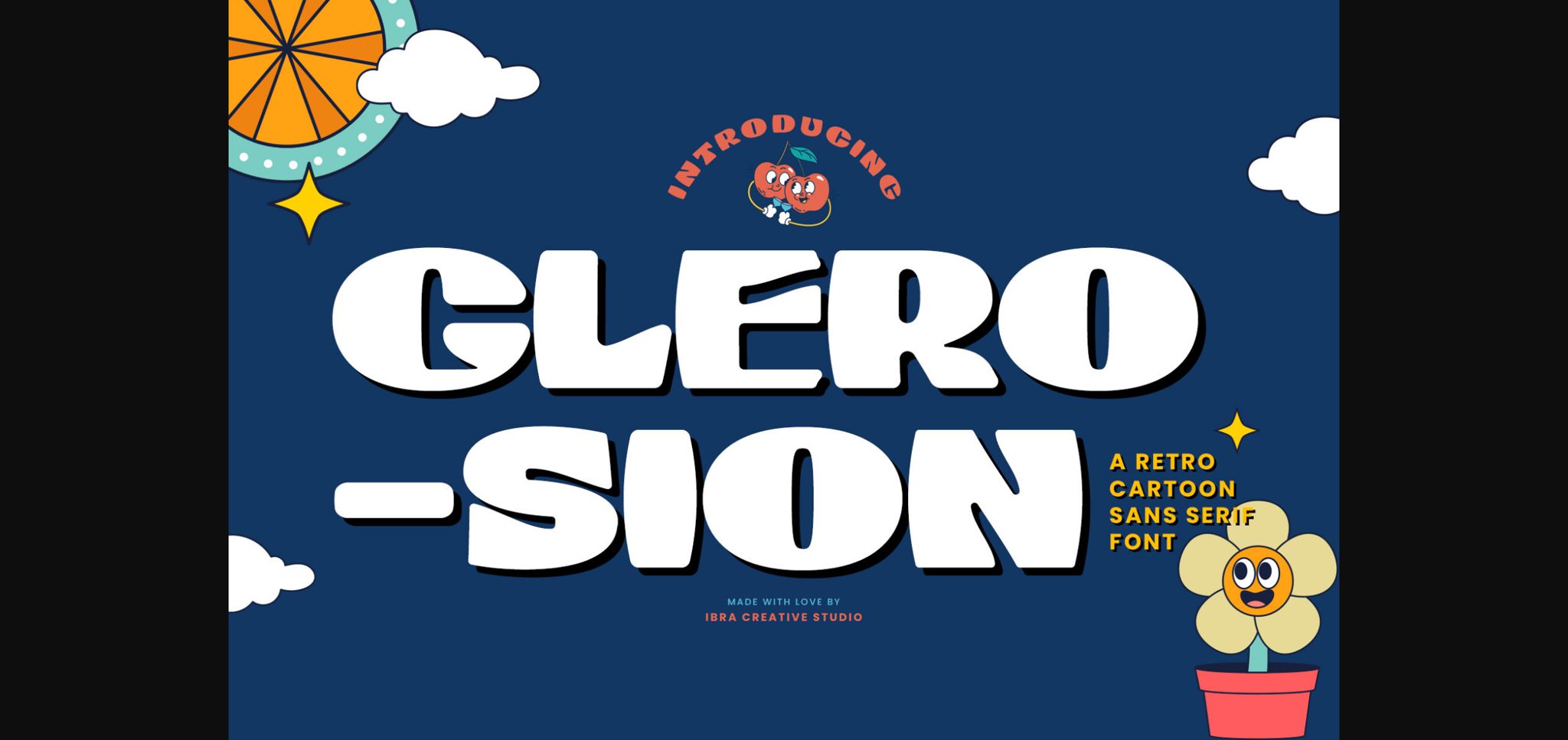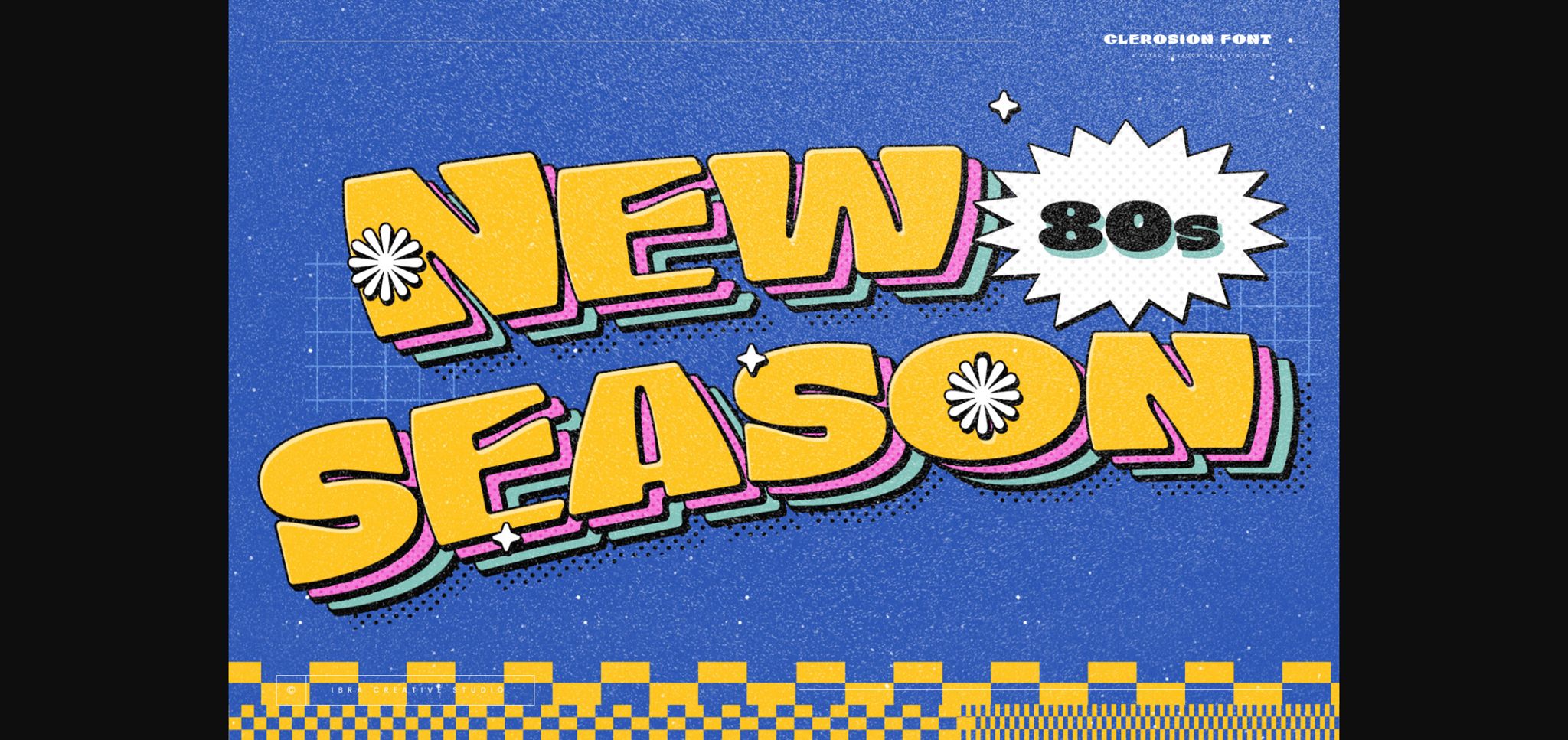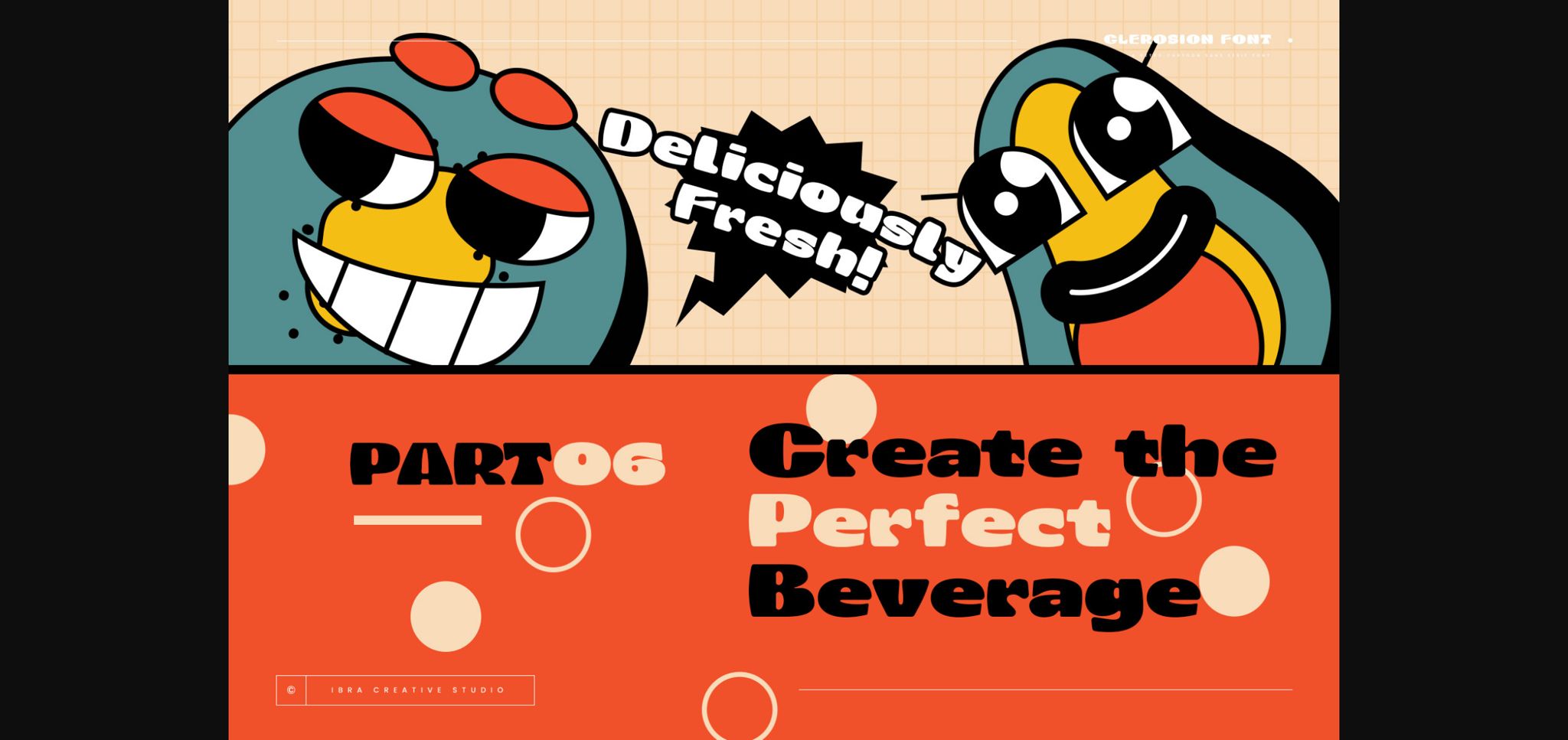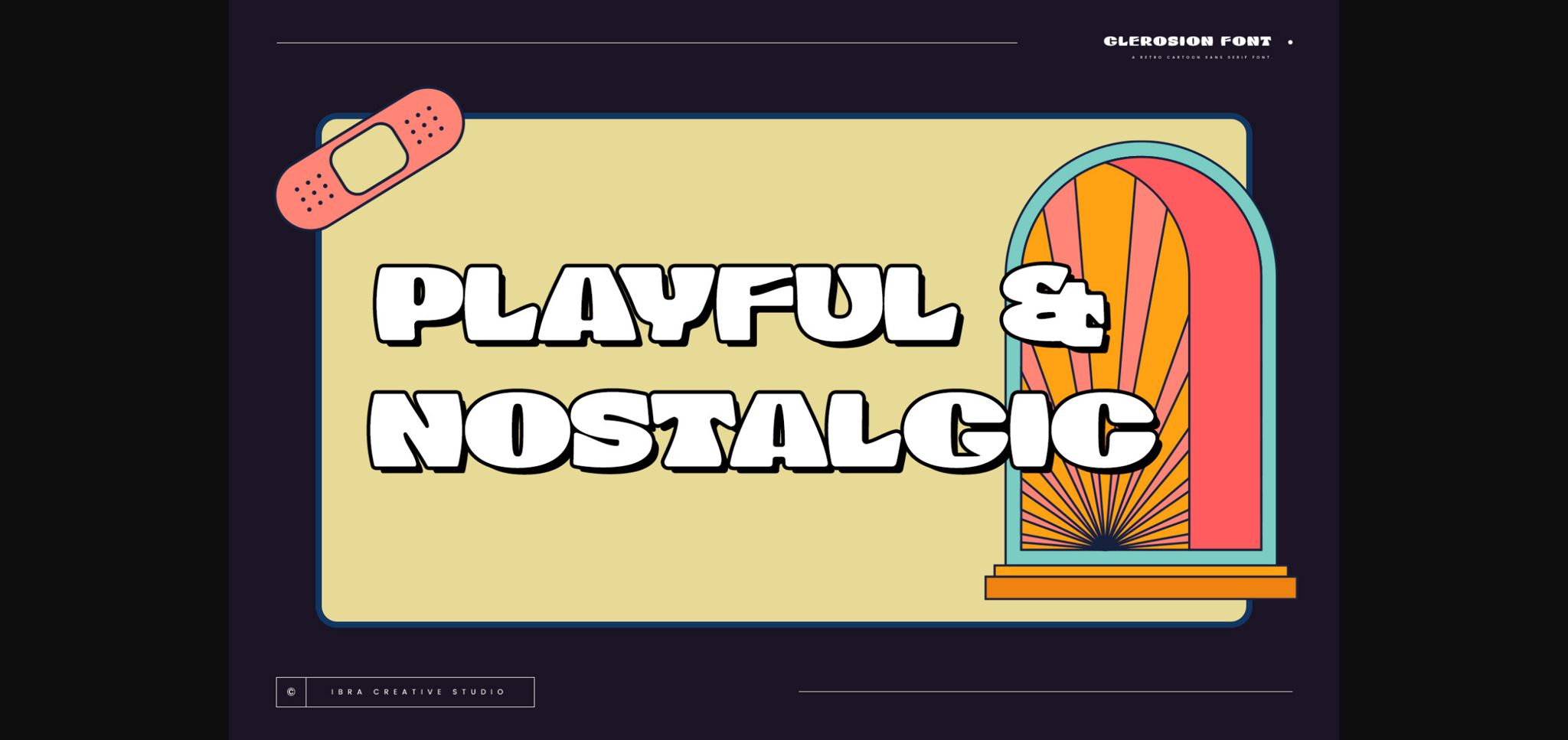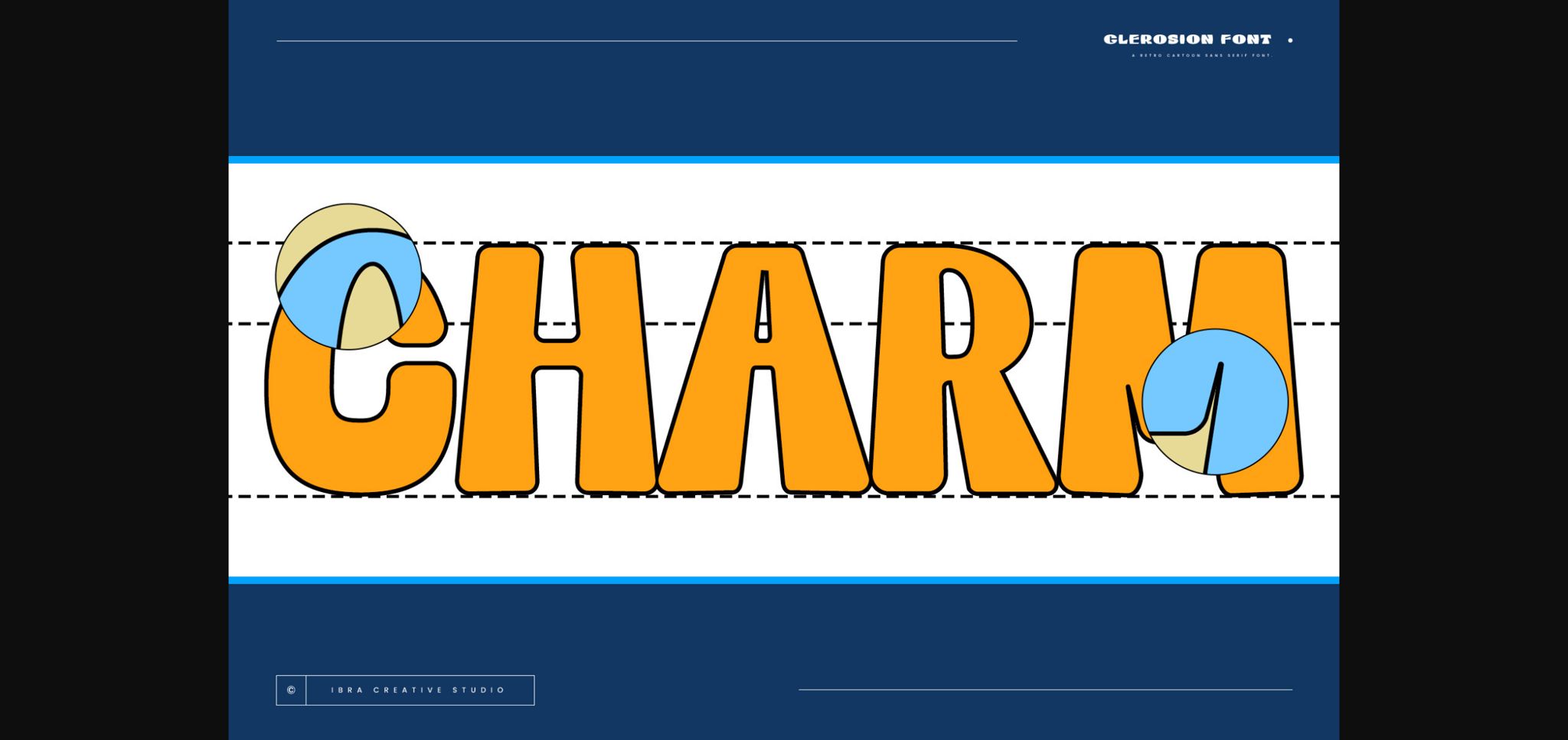
About Glerosion Font
Glerosion, a retro cartoon sans-serif font, exudes a playful and nostalgic charm that effortlessly transports viewers to a bygone era. With its whimsical and rounded letterforms, Glerosion captures the essence of classic cartoon aesthetics, reminiscent of beloved animated shows from the mid-20th century. The font strikes a harmonious balance between a timeless simplicity and a distinct vintage flair, making it a versatile choice for a range of creative projects that seek to evoke a sense of lightheartedness and retro appeal.